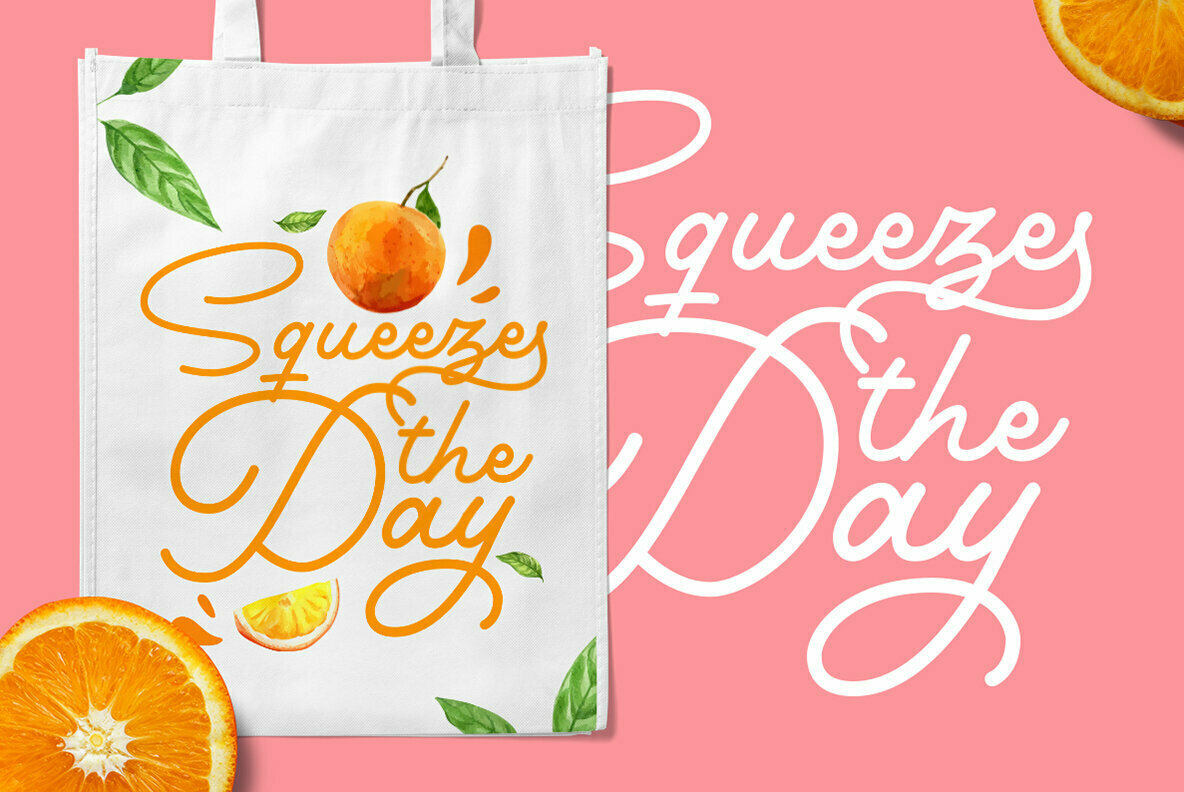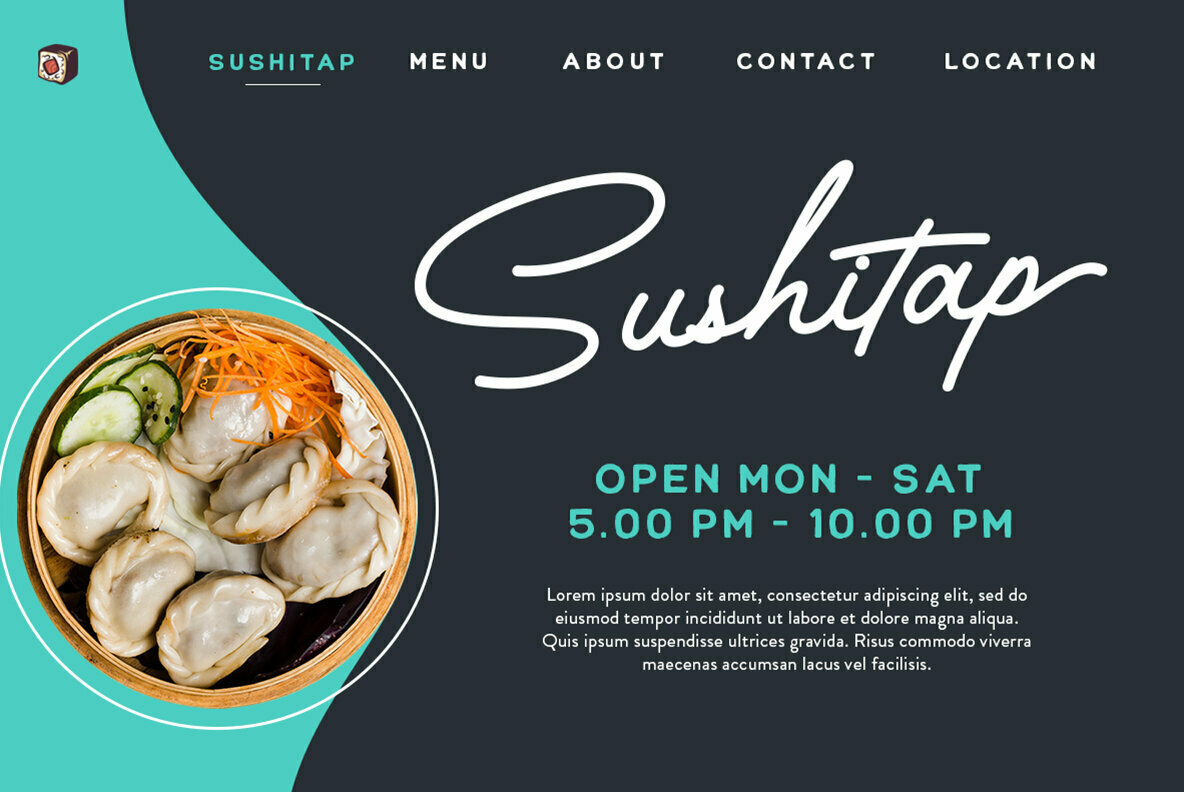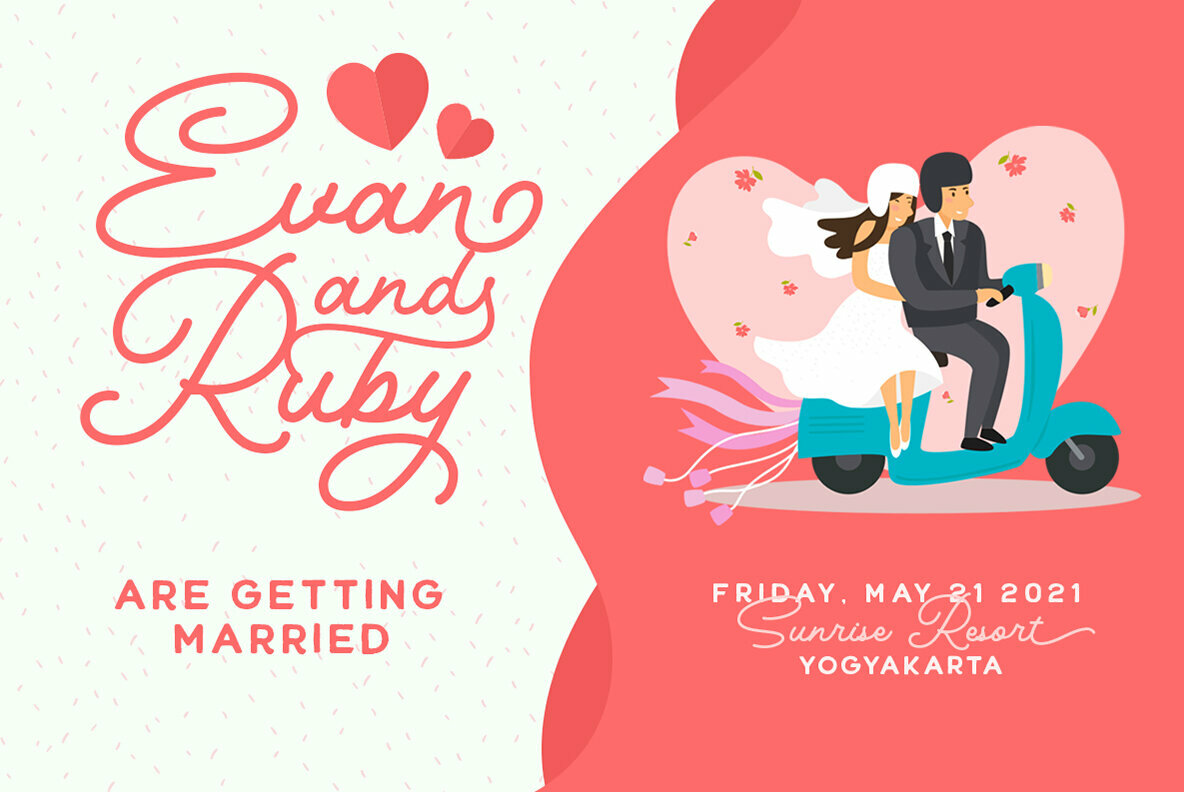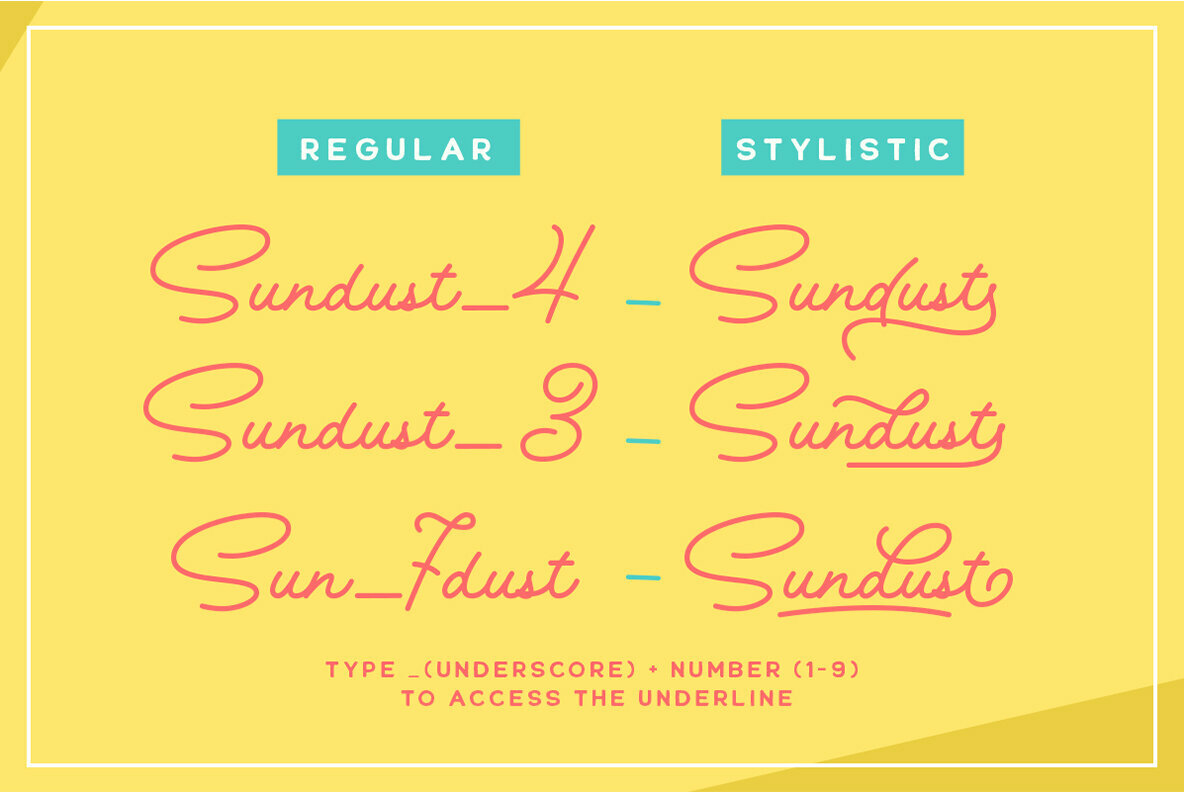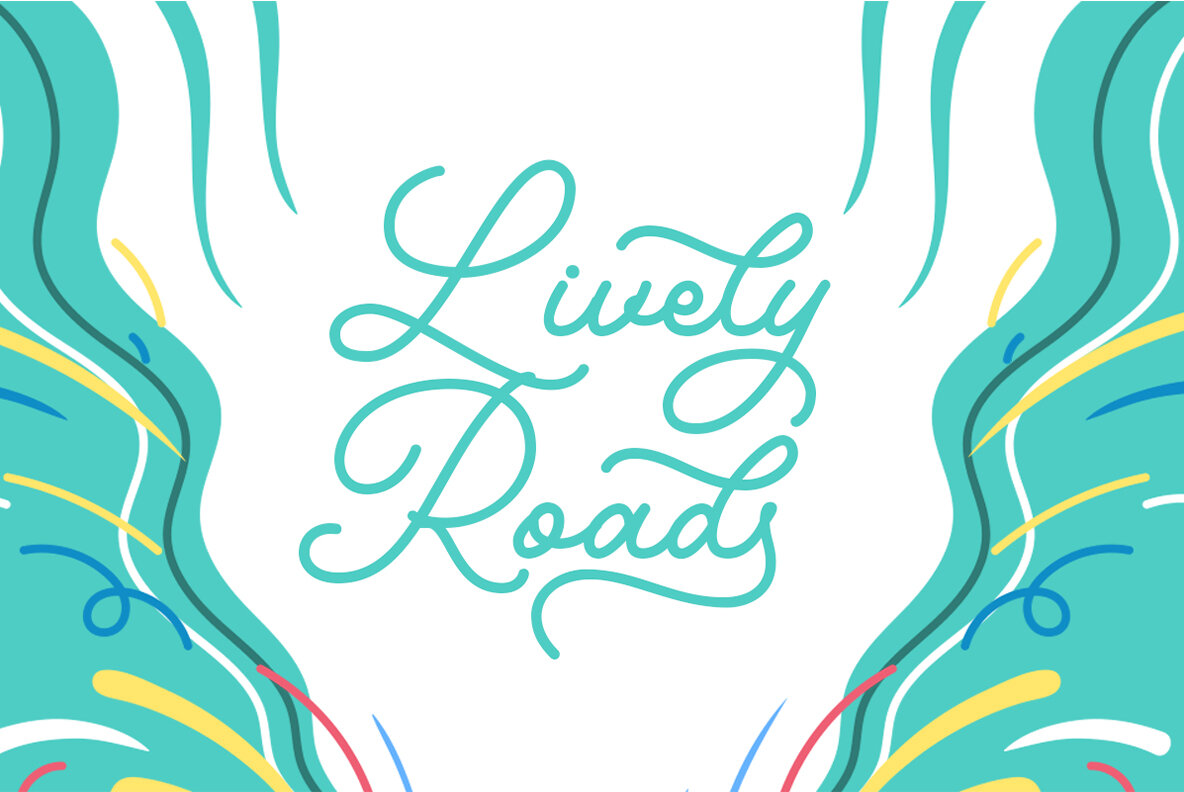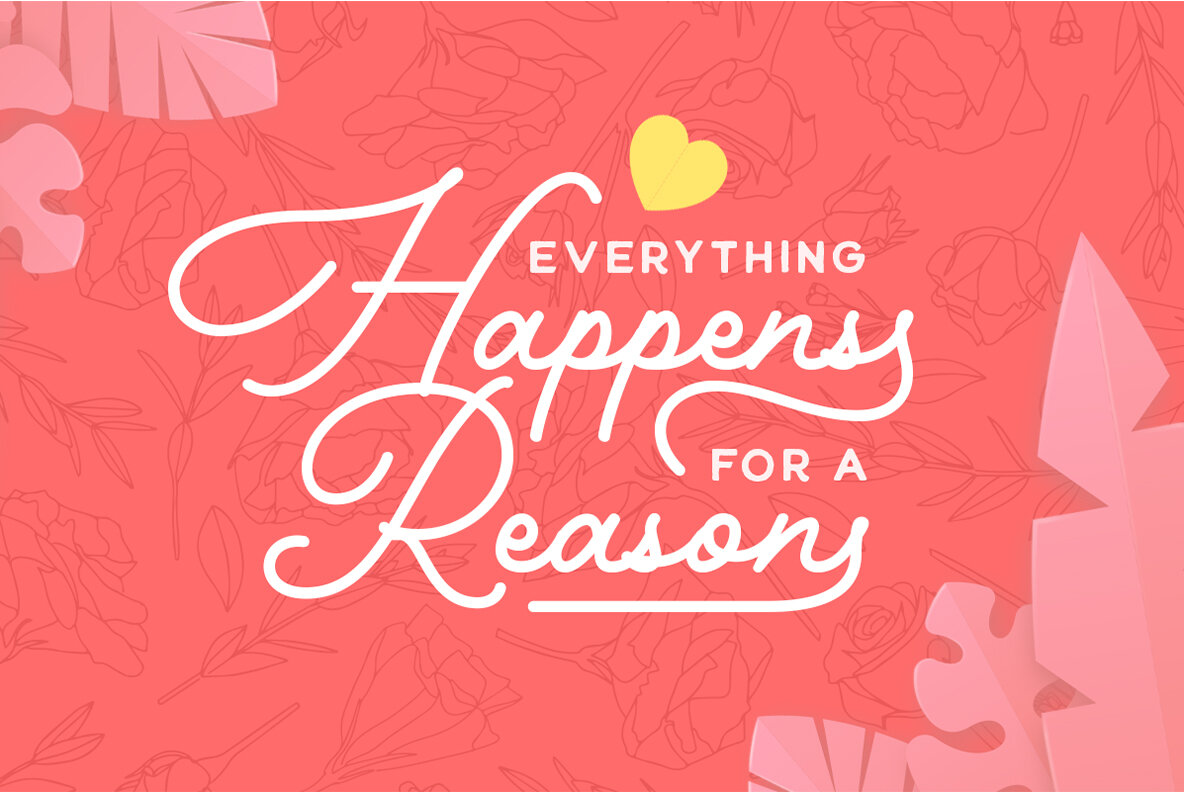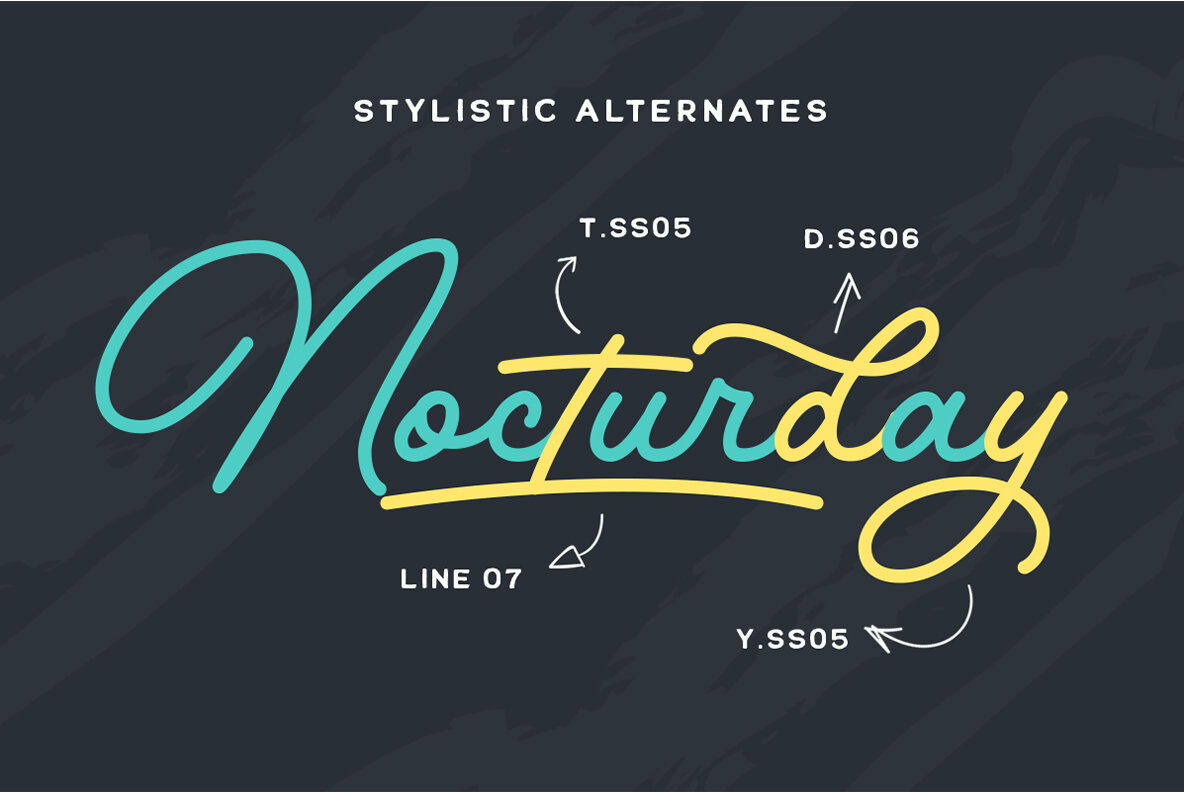
Kinderline Script Font
Kinderline Script Regular
Kinderline Script Rough
Kinderline Script embodies a spirit of playfulness and charm, offering a monoline script that captivates with its fluidity and style. Ideal for headlines, social media posts, and branding elements, it also enhances magazine spreads, book covers, greeting cards, packaging, and more. For the best experience, it's recommended to use applications that support OpenType features, allowing easy access to the font's full potential. Adobe apps and Corel Draw are excellent options to explore Kinderline's diverse glyph variations.Kinderline Script: A Joyful Monoline Typeface